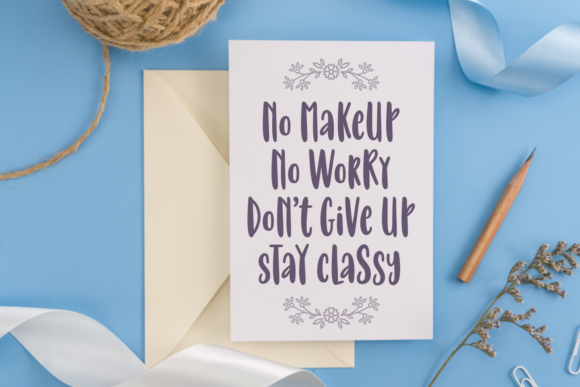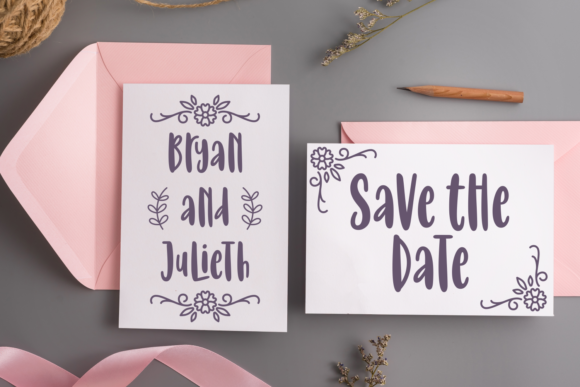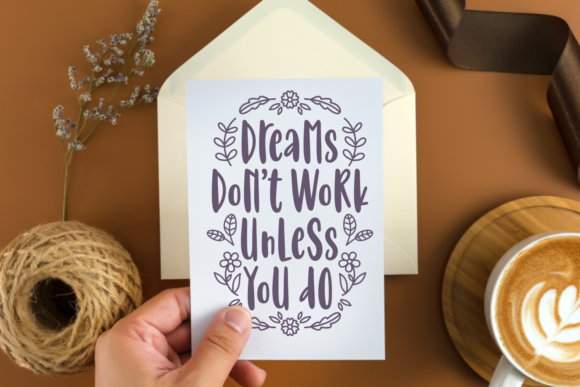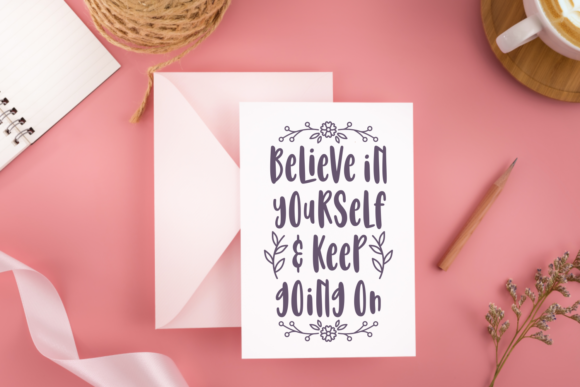
Introduction to Literally Natural Font
Inspired by nature, Literally Natural is a beautiful font that will effortlessly add a unique touch to a big variety of design projects.
It contains adorable and whimsical elements that will make any nature-lover smile .
Key Features of Literally Natural Font